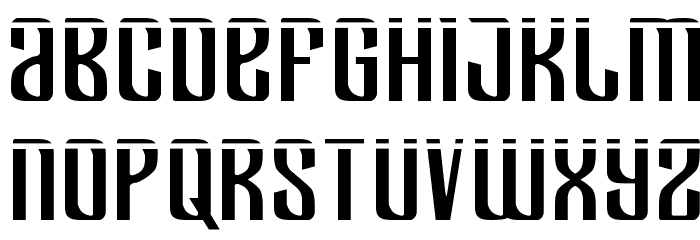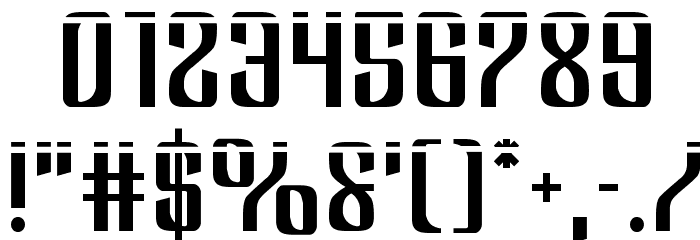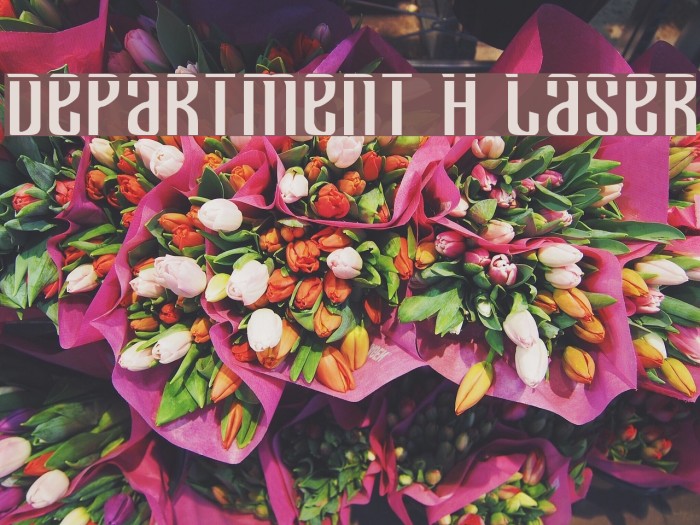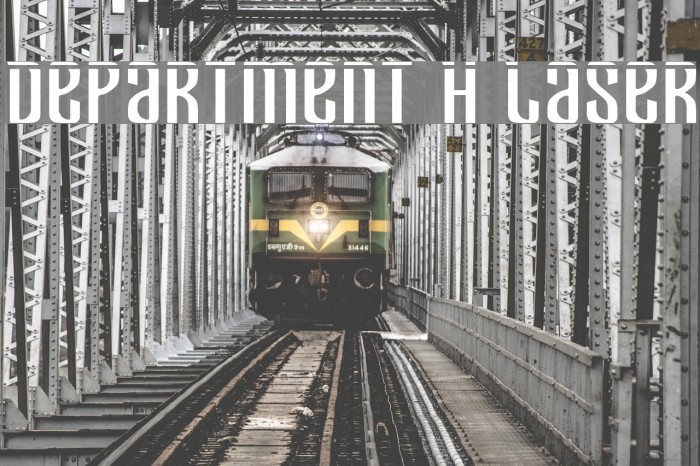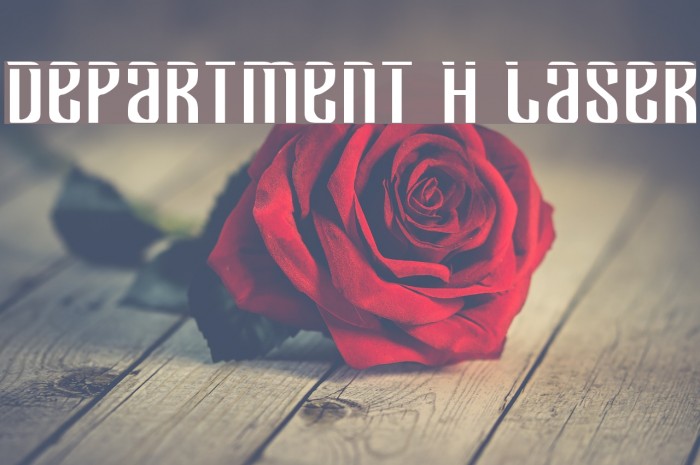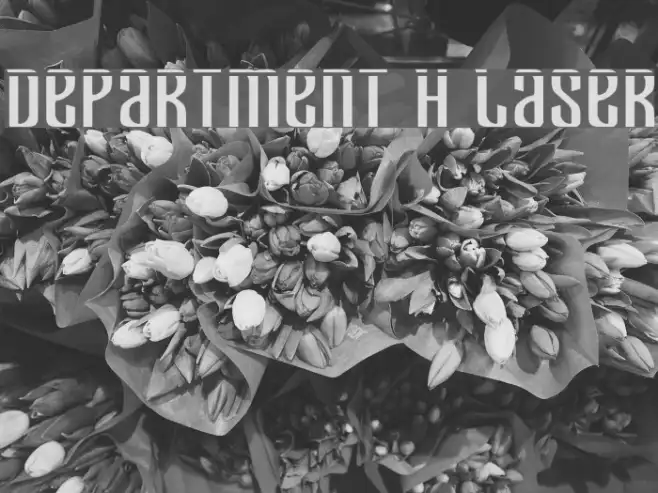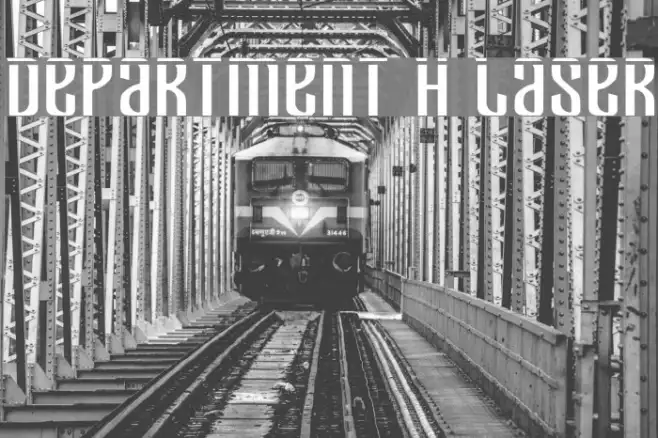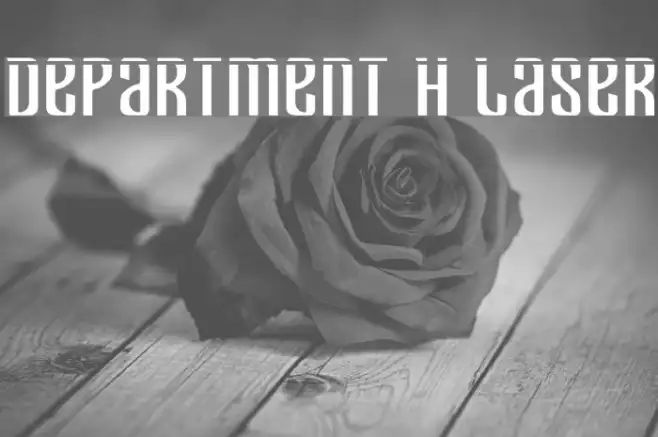
Department H Laser Font
This font features a bold, futuristic design with a strong geometric influence. The characters are constructed with sharp, angular edges and a consistent stroke width, giving it a robust and industrial feel. The uppercase letters are particularly striking, with a uniform height and width that create a cohesive and balanced look. The lowercase letters maintain the same design principles, ensuring readability while preserving the font's unique style. Numbers and special characters are designed to match the overall aesthetic, making this font versatile for various applications. The spacing between characters is tight, enhancing the compact and modern appearance.
A bold, futuristic font with geometric and industrial design elements.
- Proposed Projects: Ideal for technology branding, sci-fi movie posters, video game titles, and modern advertising campaigns.
- Character Spacing: Tight
- Overall Style: Futuristic, Industrial